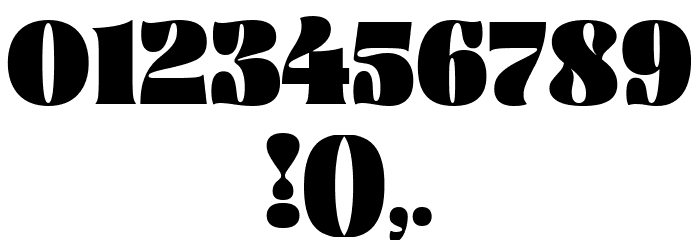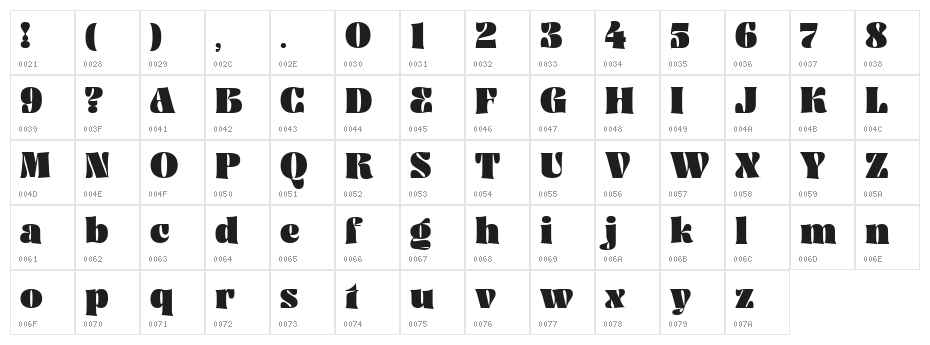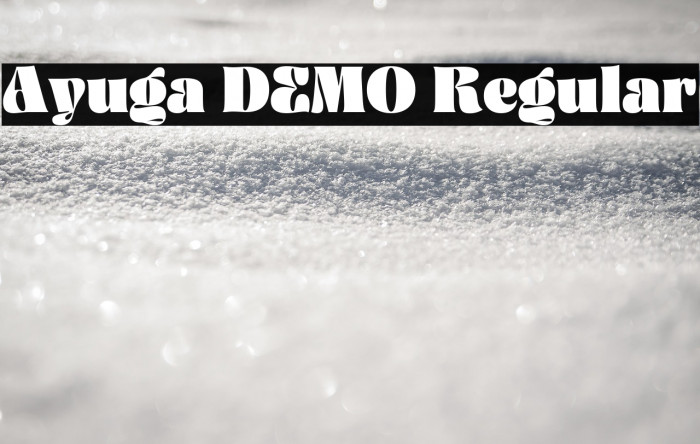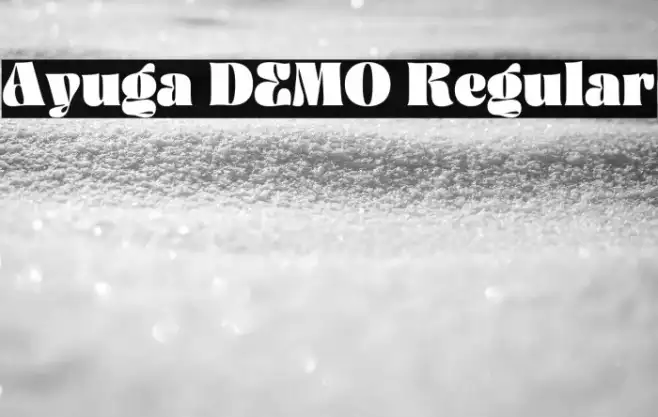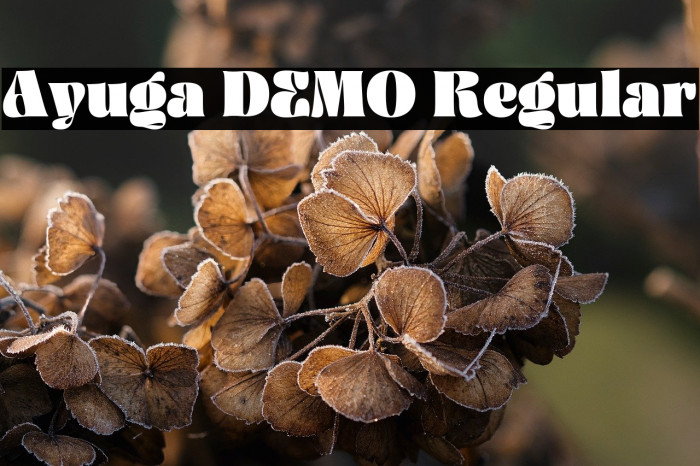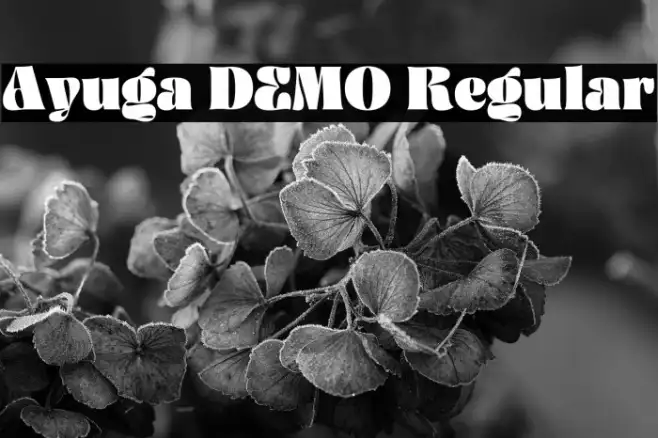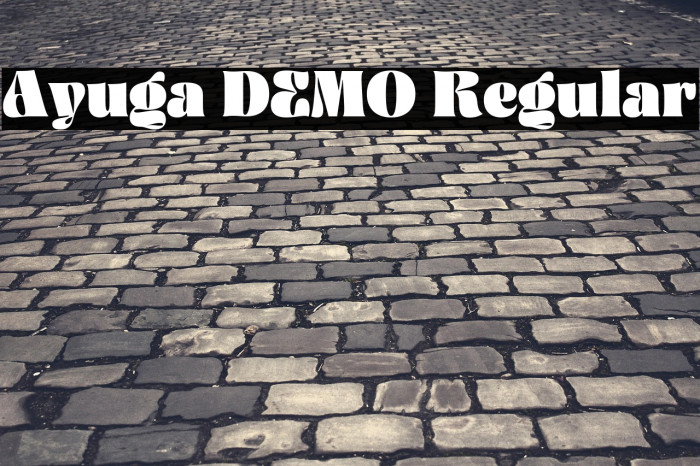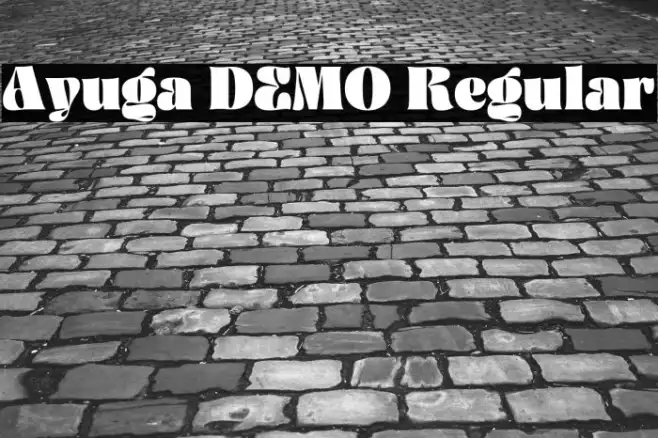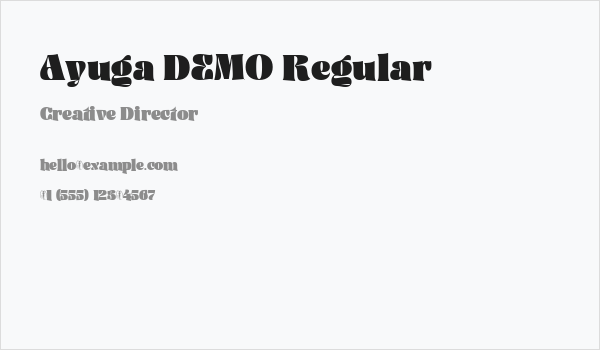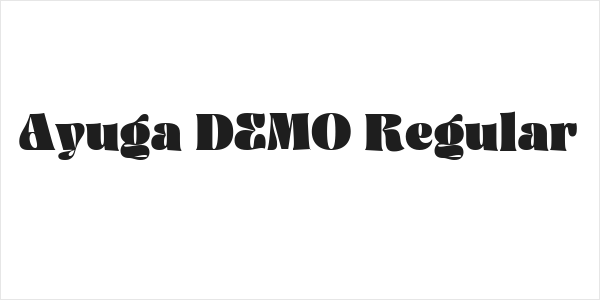
Ayuga DEMO Regular Font
Ayuga DEMO Regular Description
This font features a bold and dramatic style with high contrast between thick and thin strokes. The characters are designed with a unique flair, incorporating sharp angles and curves that give it a distinctive, eye-catching appearance. The uppercase letters are particularly striking, with a strong presence that commands attention. The lowercase letters maintain the same boldness, ensuring consistency across the typeface. The numerals and special characters follow the same design principles, making them cohesive with the rest of the font. Overall, this font exudes a sense of modernity and creativity, making it suitable for projects that require a bold statement.